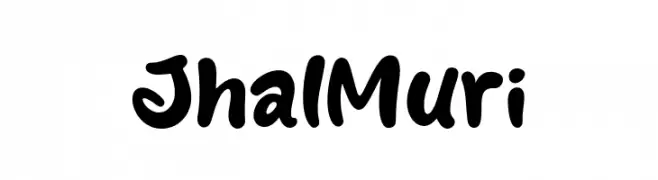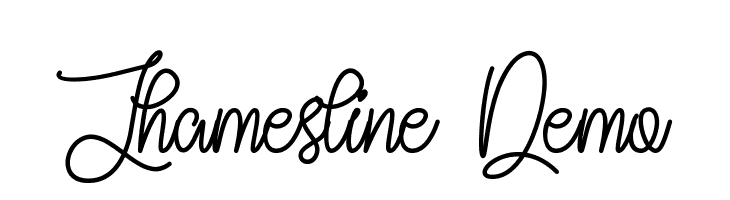
A playful, bold handwritten font with rounded edges and a casual style.
An ornate and decorative script font with elegant swirls and flowing lines.
A bold, dynamic script font with flowing, cursive strokes.
A decorative and modern font with ornate uppercase and clean lowercase letters.
A bold, expressive script font with flowing, cursive letterforms.
A lively and elegant script font with flowing, interconnected letterforms.
A graceful, cursive font with interconnected letters and a natural handwriting style.
A whimsical and decorative font with playful curls and swirls.